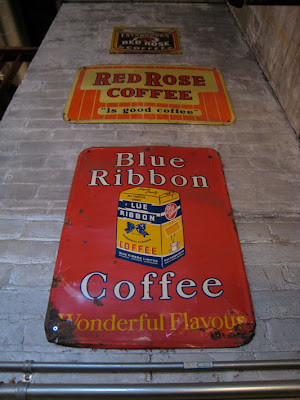
Three from Toronto Union Station
These are some abandoned signs from around tracks ll, 12 and 13 of Union Station, by TTR, (Toronto Terminal Railway) and VIA Rail. (what goes up doesn't necessarily come down.)
The third image with the raised letters one is an old VIA Rail sign that is rather a curiosity to me. Why the bother for such a mundane message. They would have had to buy cast acrylic letters and hand-glue them onto the acrylic substrate. Silk screening would have been a fraction of the cost. And less quirky. Look closely - The two 'e's closest to the bottom are kind of headed downhill
Bathurst beauty
Fresh Brewed Type
Here is Josué Menjivar's site with a section dedicated to found type. This shot in particular is from Ottawa (my home town) and the lettering from these "cold ice" boxes are iconic to this part of the country, brings back memories.... There are also shots from Perth, Ontario, a small town outside Ottawa that I rarely see any reference to at all.
Positioning statement: A record of type and lettering found in the public domain
by Jenn Lawrence
by Chryssi Tsoupanarias
by Anthony Swaneveld
by Milks
photo by Jenn Lawrence
photo by Anthony Swaneveld
the aristocrat of all coffee (shops)